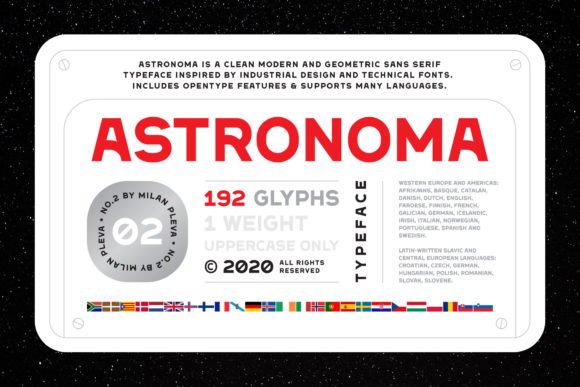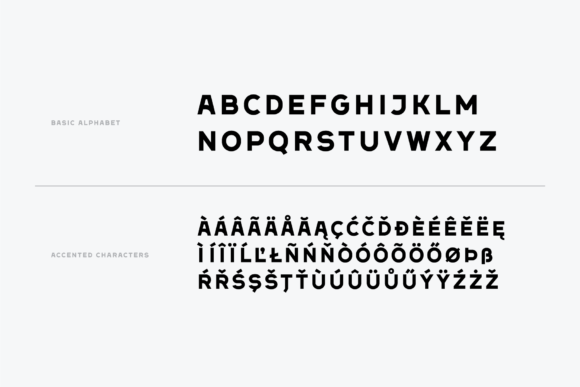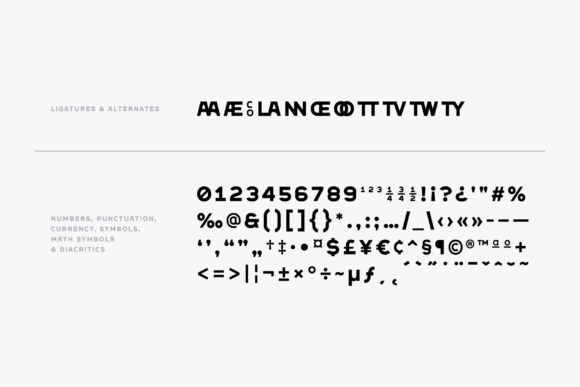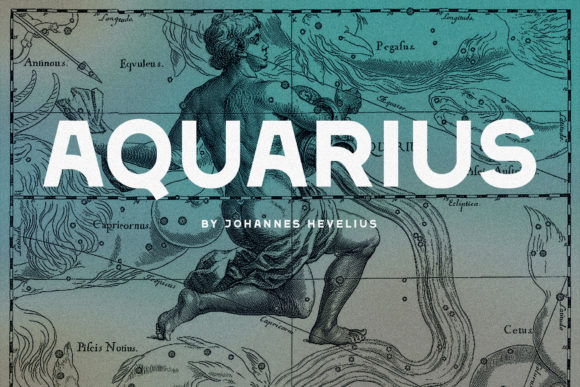
Astronoma Font: Modern Geometric Sans Serif for Logo Design & Headlines
About the Astronoma Font
From logos to headlines, the Astronoma Font is the perfect choice for making a lasting impression. Astronoma is a clean, modern, and geometric sans serif font inspired by industrial design and technical fonts. Astronoma is ideal for headlines, headers, logos, labels, packaging, presentations, magazines, invitations, etc.
Astronoma’s strong geometric forms and clean lines make it particularly effective for branding projects requiring a modern and sophisticated feel, especially those in technology, engineering, or architecture. It excels in headlines, logos, and short, impactful text elements on packaging or posters. However, its less-than-optimal x-height makes it unsuitable for extended body copy or UI elements where readability is paramount.
Pairing Astronoma with a warmer, more humanistic serif like Playfair Display for body text creates a pleasing contrast, balancing its cool geometric precision with a touch of traditional elegance. Alternatively, a geometric sans serif like Montserrat, used sparingly as an accent font, reinforces Astronoma’s modern aesthetic while providing functional variation for smaller text.
Astronoma projects an air of confident minimalism and technological precision. Brands seeking to communicate innovation, efficiency, and a high level of expertise will find it a strong visual asset.
Astronoma Font Usage Examples
Astronoma Font Example